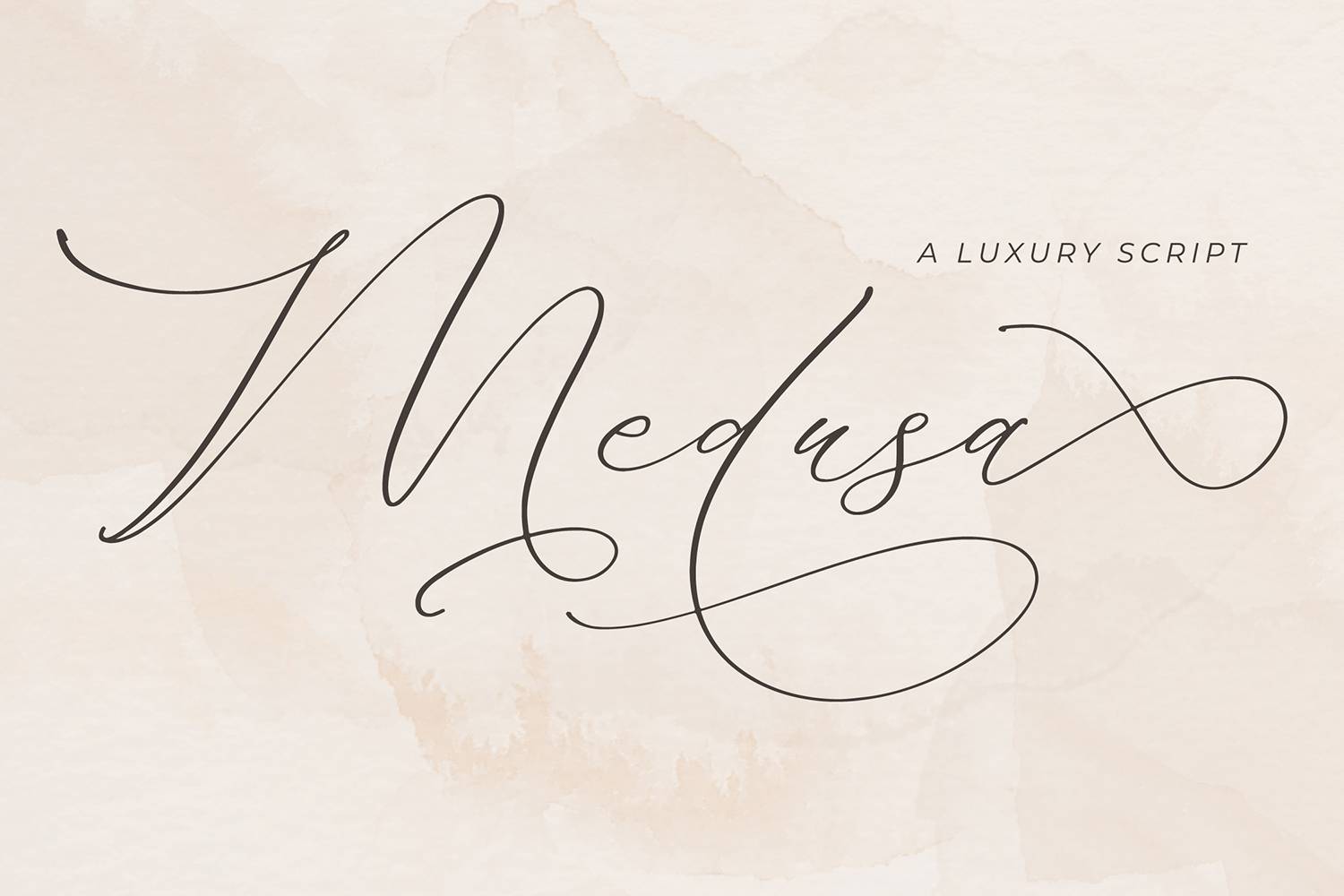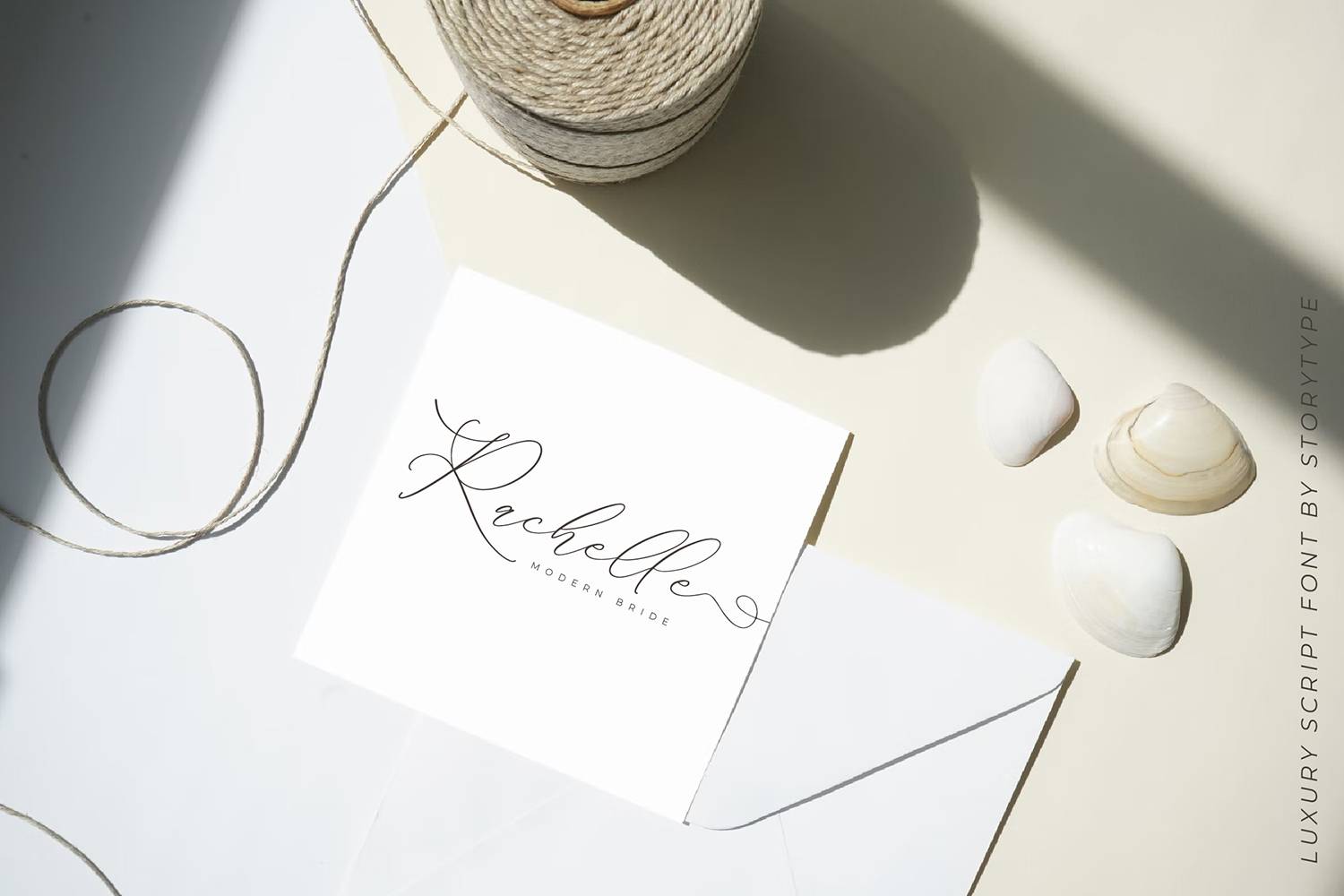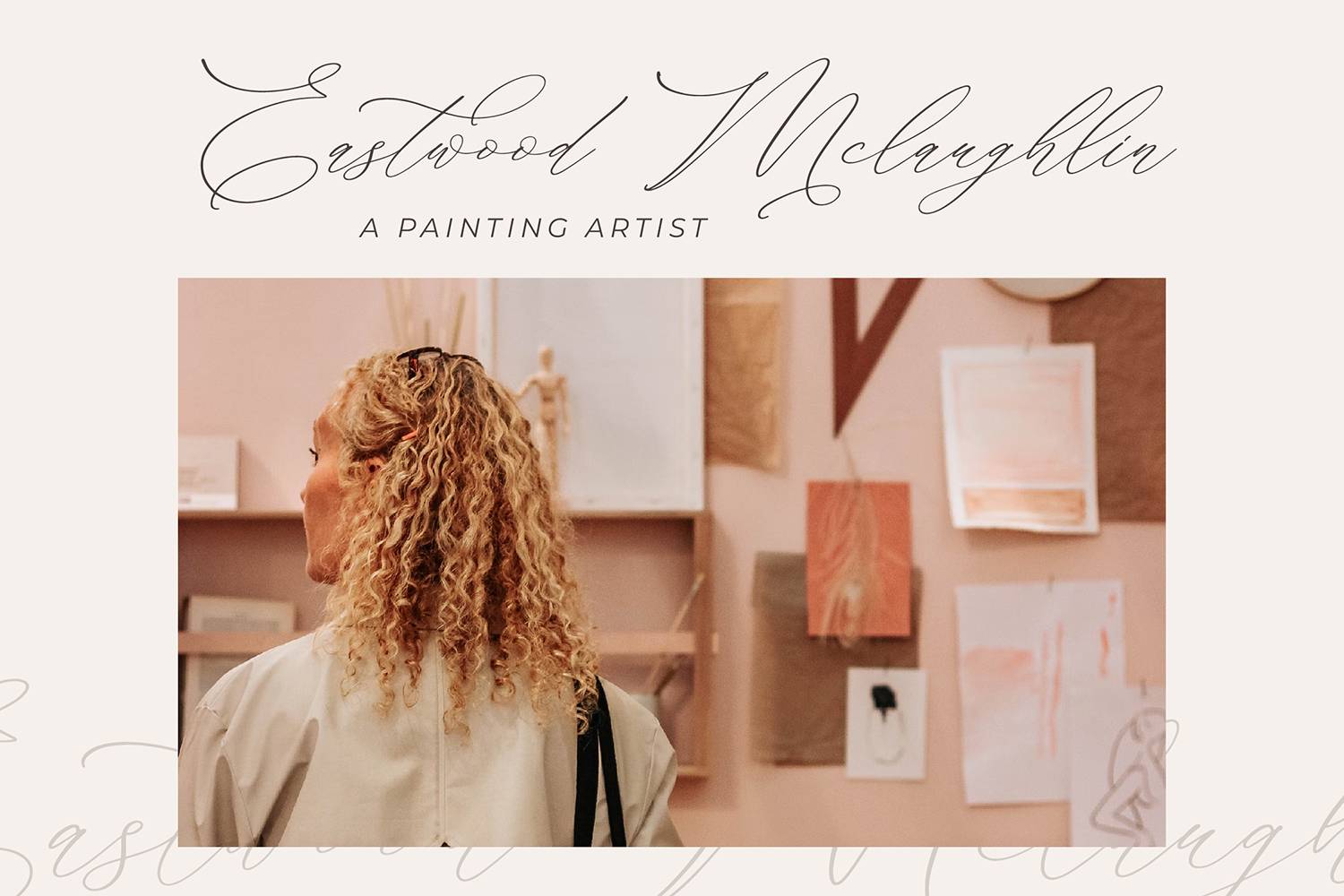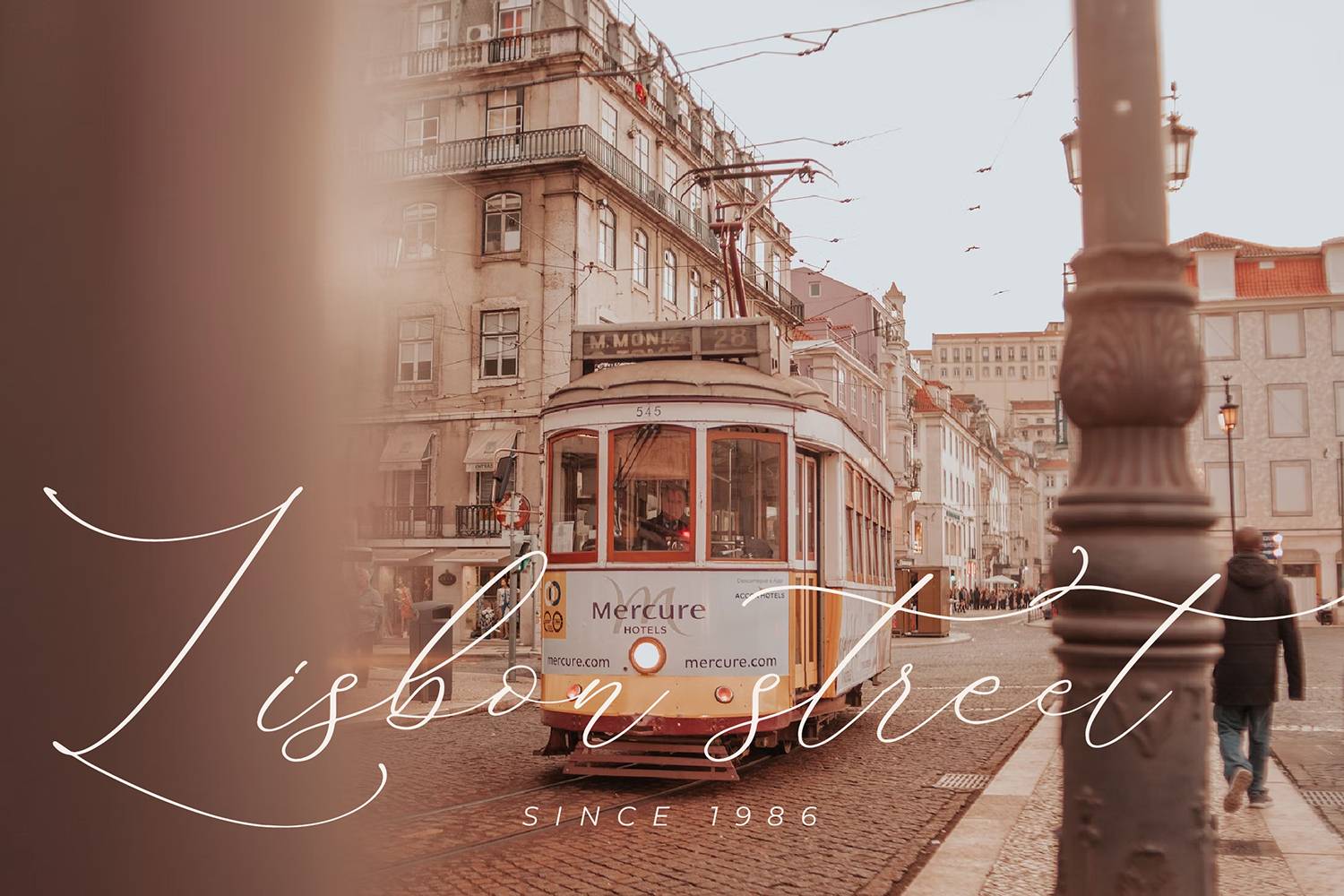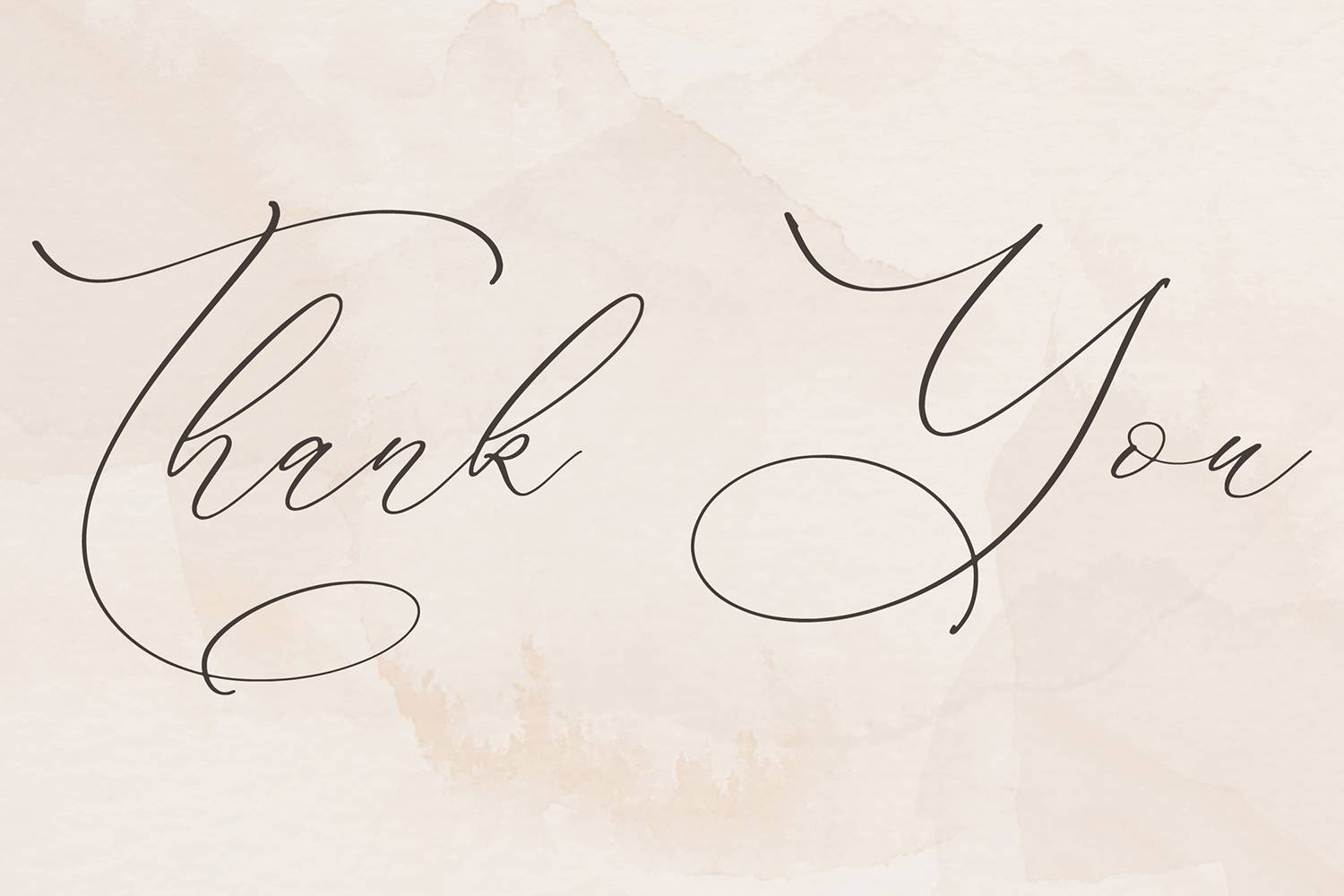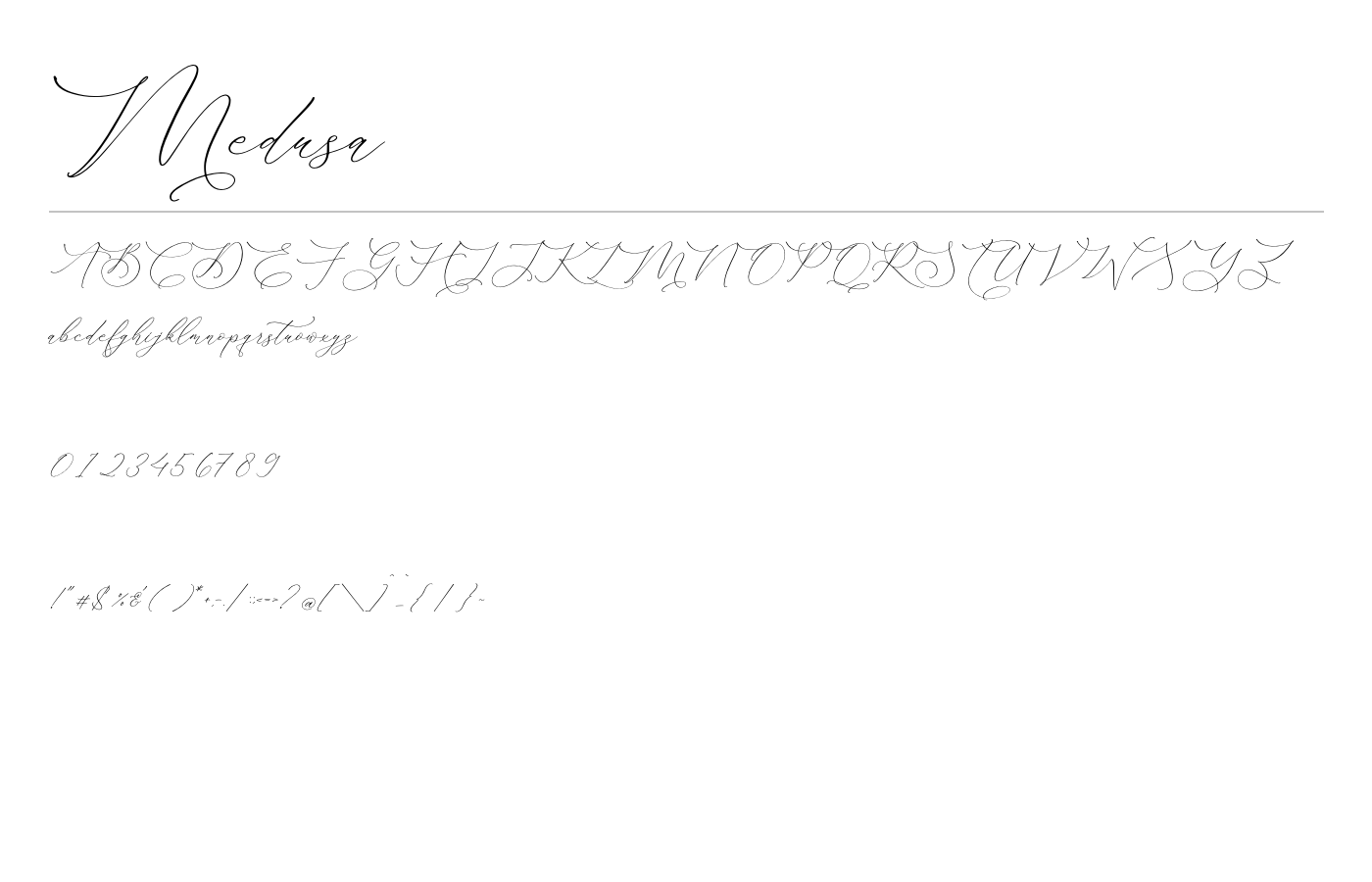
Medusa is a delicate, elegant script font characterized by its extremely fine lines and graceful, flowing strokes. Its high-contrast, calligraphic style with elaborate flourishes gives it a sophisticated, romantic feel, making it ideal for luxury branding, wedding invitations, and elegant logo designs. This font excels in large display use where its detailed letterforms can be fully appreciated, adding a refined and artistic touch.
Medusa Font
About Medusa Font